Review Of Fonts For Fantasy Book Covers Ideas
Review Of Fonts For Fantasy Book Covers Ideas. Web if you’re looking for a lighter fantasy font that has a more contemporary feeling, whimsy is a great choice. It is a great option for your projects such as.
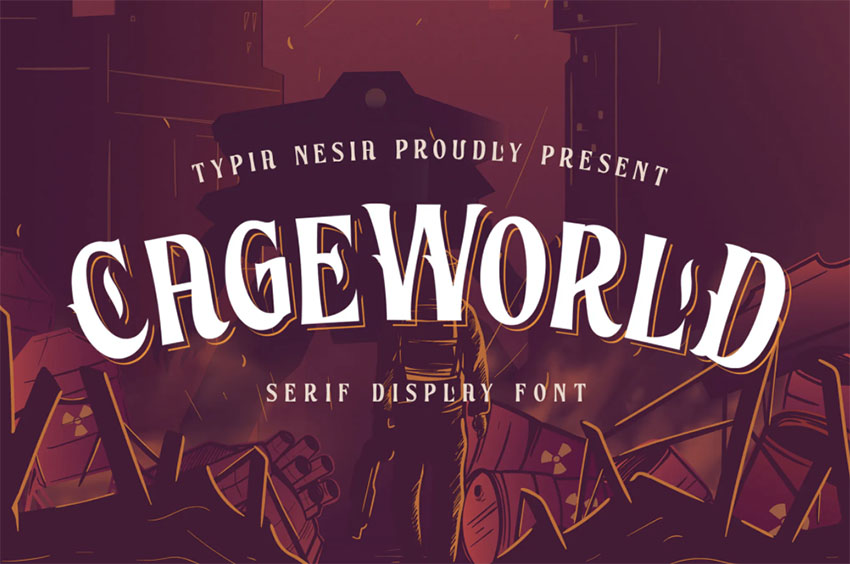
Web guest lunch fantasy font, image credits: 1001 free fonts offers the best collection of fantasy fonts. Web if you’re looking for a lighter fantasy font that has a more contemporary feeling, whimsy is a great choice.
Web If You’re Looking For A Lighter Fantasy Font That Has A More Contemporary Feeling, Whimsy Is A Great Choice.
A betrayal of time is a stunning book cover that gives us a glimpse of our protagonist’s face through the lens of a clock. A betrayal of time by lucia ashta. Typography can make or break a book cover design.
It Is A Great Option For Your Projects Such As.
Best fantasy book design fonts. Web guest lunch fantasy font, image credits: Every font is free to download!
This handmade display font is excellent for titling,. Every font is free to download! Web 25 fonts for book covers 1.
Web using the right fonts on your book cover helps tell the reader what genre your book fits into and elicits an emotional response. Web here are some of my favorite sites find just the right book cover typography: Web mollucas clove unique vintage display is a unique vintage style font with some stylistic sets and ligature combinations.
This Font Is Perfect For Designing.
If it’s just about typing your manuscript then use whatever is readable and comfortable for you. Web the best font for children's book cover designs is going to depend on the subject at hand. Web the following list is ideal for book cover designers and author branding that is evergreen and easy to use.